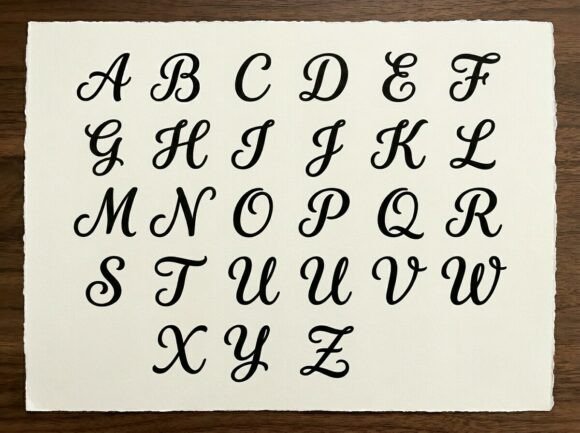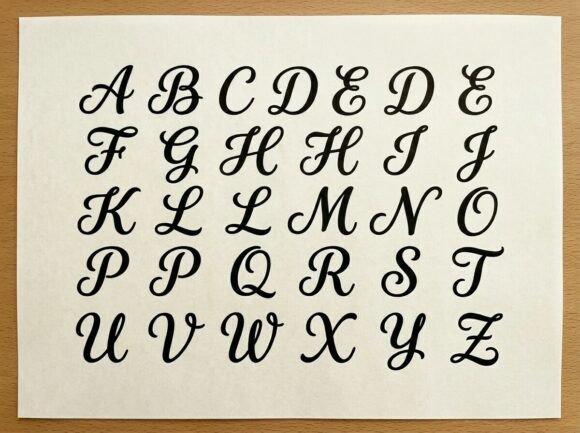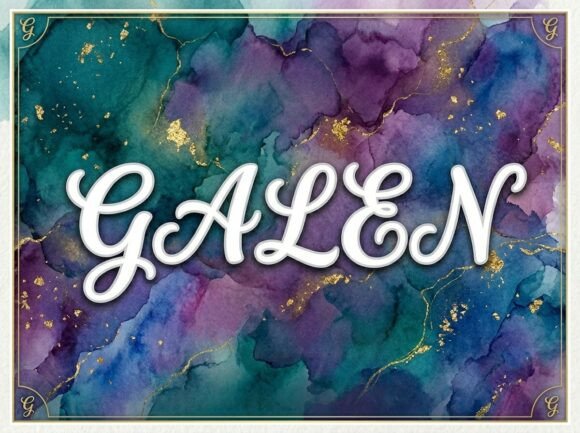
Introducing Galen Font: A Stunning Decorative Display Font
Are you tired of using the same old fonts for your designs? Look no further than Galen Font, a unique and artistic display font that’s sure to turn heads. With its strong visual personality and decorative elements, this font is perfect for creators who want to add a touch of elegance and sophistication to their work.
What Makes Galen Font Special?
Galen Font is a decorative display font designed to be the center of attention. Its unique artistic elements and strong visual personality make it perfect for bold headlines, artistic logos, and creative packaging. Whether you’re a designer, craftsperson, or DIY enthusiast, this font is sure to elevate your work to the next level.
Key Features of Galen Font
- Unique Artistic Elements: Galen Font features intricate and decorative elements that add a touch of elegance to any design.
- Strong Visual Personality: This font has a bold and eye-catching personality that’s sure to grab attention.
- Versatile: Galen Font is perfect for a variety of design applications, including bold headlines, artistic logos, and creative packaging.
- Professional and Polished Finish: Despite its decorative nature, Galen Font maintains a professional and polished finish that’s suitable for high-end designs.
Important Note: All-Caps Display Typeface
Before purchasing Galen Font, please note that it’s an ALL-CAPS (Uppercase Only) display typeface. This means it does not include lowercase letters. It’s specifically designed for high-impact headlines, logos, and decorative initials where every letter is a work of art.
This unique design approach allows for a level of intricacy and detail that’s not possible with traditional fonts. However, it’s essential to consider this limitation when planning your design project.
Use Cases for Galen Font
Galen Font is perfect for a variety of design applications, including:
- Bold Headlines: Use Galen Font to create eye-catching headlines that grab attention.
- Artistic Logos: This font is perfect for creating unique and memorable logos that reflect your brand’s personality.
- Creative Packaging: Add a touch of elegance and sophistication to your packaging designs with Galen Font.
- Decorative Initials: Use Galen Font to create beautiful decorative initials that add a personal touch to your designs.
Tips for Using Galen Font
To get the most out of Galen Font, consider the following tips:
- Use it sparingly: Due to its decorative nature, it’s best to use Galen Font sparingly to avoid overwhelming your design.
- Pair it with a simple font: Pair Galen Font with a simple font to create contrast and visual interest.
- Experiment with colors and textures: Galen Font looks great with bold colors and textures, so don’t be afraid to experiment and find the perfect combination for your design.